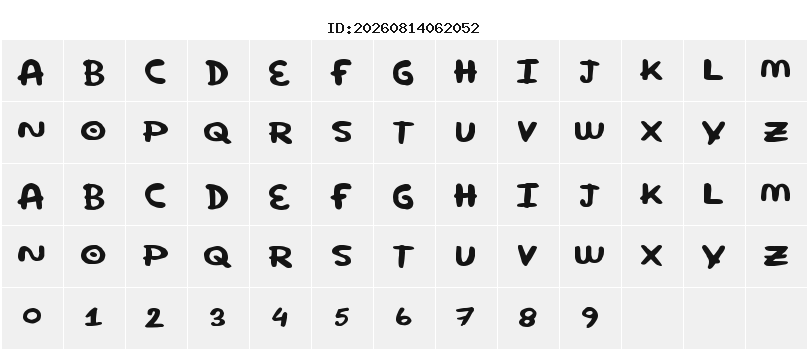
SuperRound Preview
• Font Name: SuperRound
• Full Font Name: SuperRound
• Version: Version 1.00 May 24, 2014, initial release
• Character Count: 72
• Designer: Xerographer Fonts Max Infeld
• Manufacturer: Xerographer Fonts
• Description: Made at Xerographer Studios in San Francisco,CA
About SuperRound.ttf
SuperRound.ttf is a modern, elegant sans-serif font designed for ultimate readability and visual harmony. Perfect for branding, headlines, web design, and print materials.